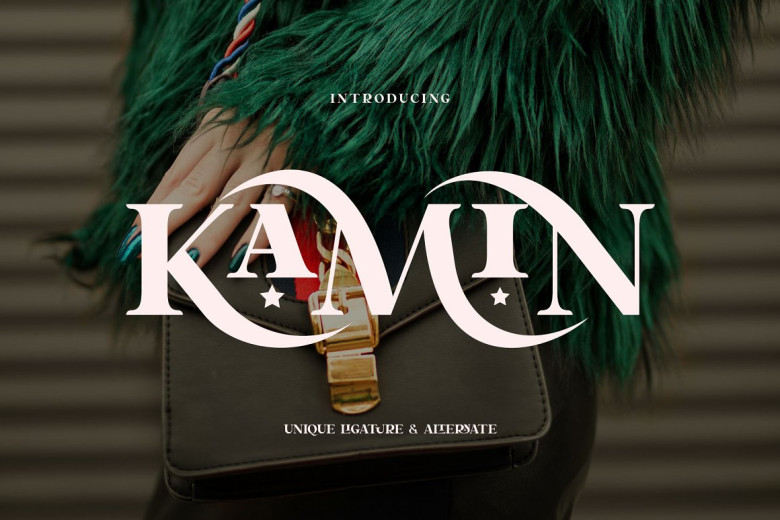
Kamin Font
KAMIN offers an elegant serif font. Perfect for logos, magazines and social media designs alike; already matched and ready to use in your next design, modern yet nostalgic, KAMIN adds modernity with style! Don’t settle for just any design, add modernity, elegance style class chicness with this beautiful font!
KAMIN is an OpenType font which features ligatures, punctuation and numbers.
Kamin Serif Font